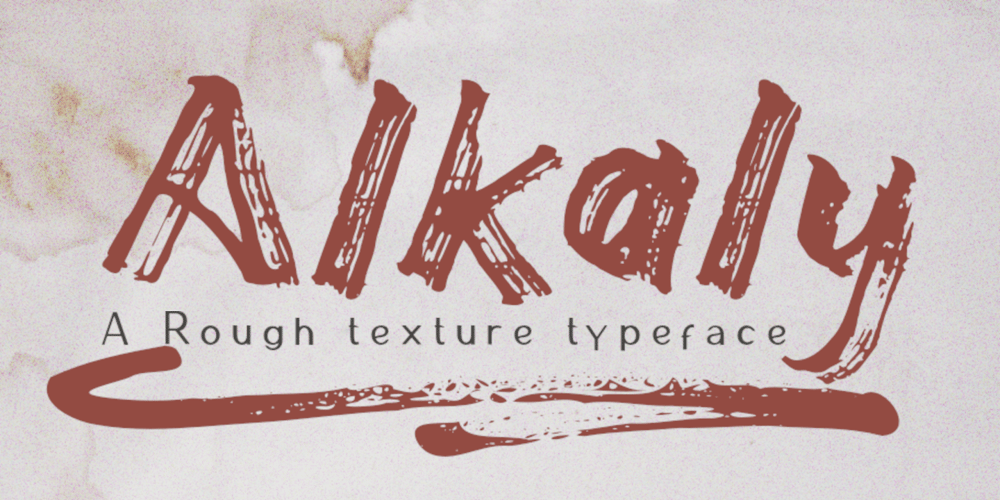
Alkaly Font Family was designed by Syukur Setiyadi and published by SSI.Scraps. Alkaly contains 1 styles and family package options. Alkaly is a great handwritten font with a natural scratch texture. This font is the perfect fit for all of your logos, branding, social media, and many others